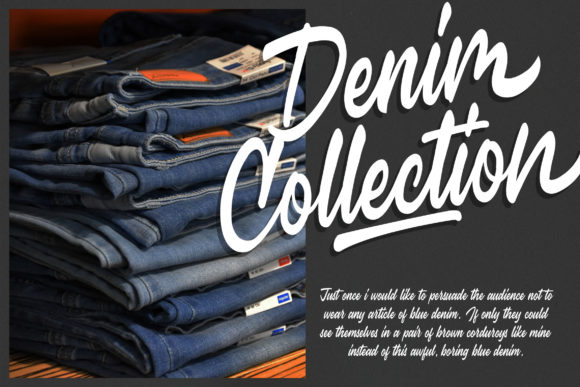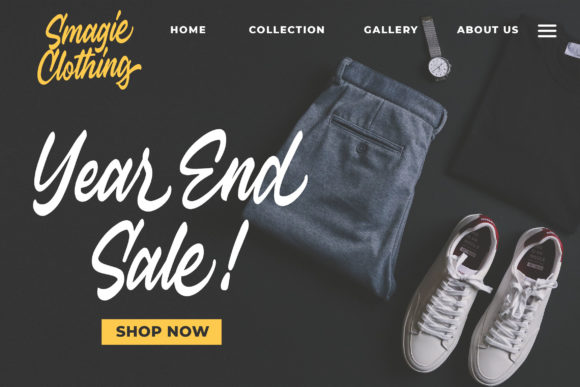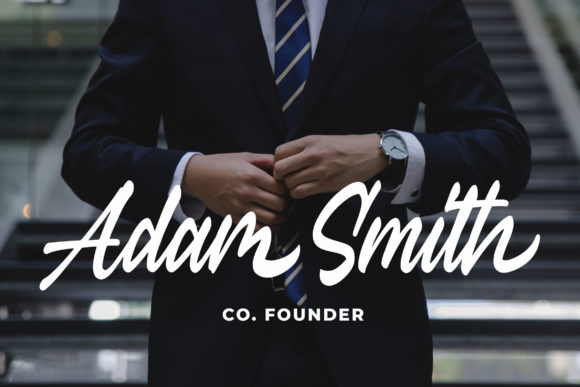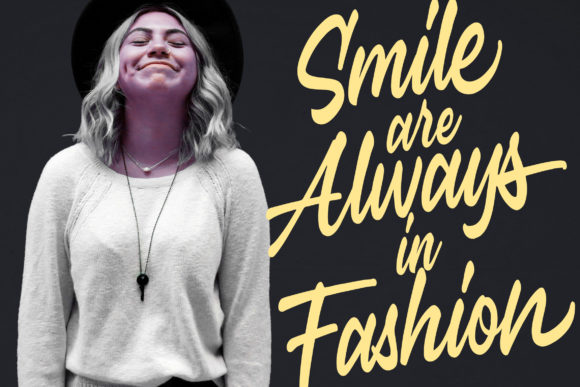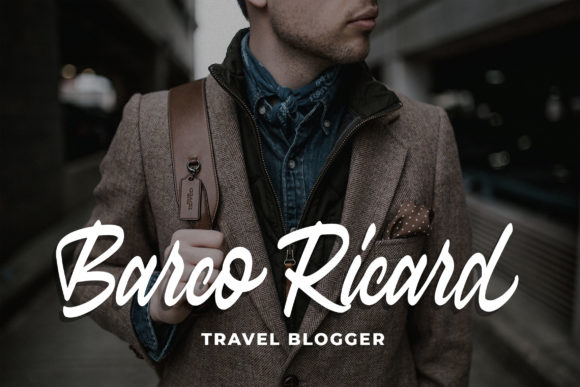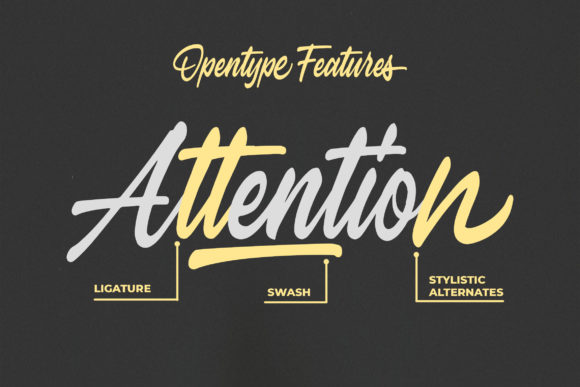
Introduction to Hayline Font
Hayline delivers a charming and bold font experience that will turn any design idea into a true standout.
Hayline delivers a charming and bold font experience that will turn any design idea into a true standout!
Key Features of Hayline Font
Why Choose Hayline Font?
Hayline Font offers exceptional quality and versatility, making it a valuable addition to your design toolkit. Whether you’re creating for personal projects or commercial use, Hayline Font delivers professional results.